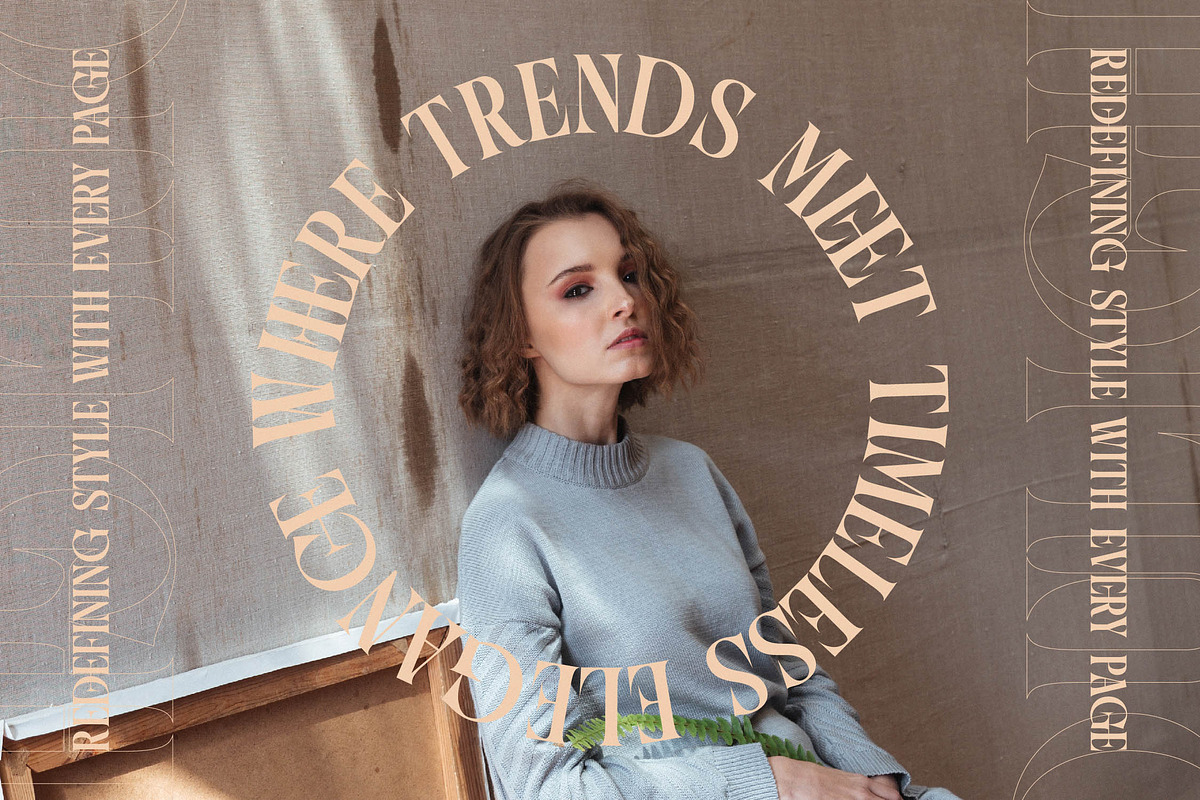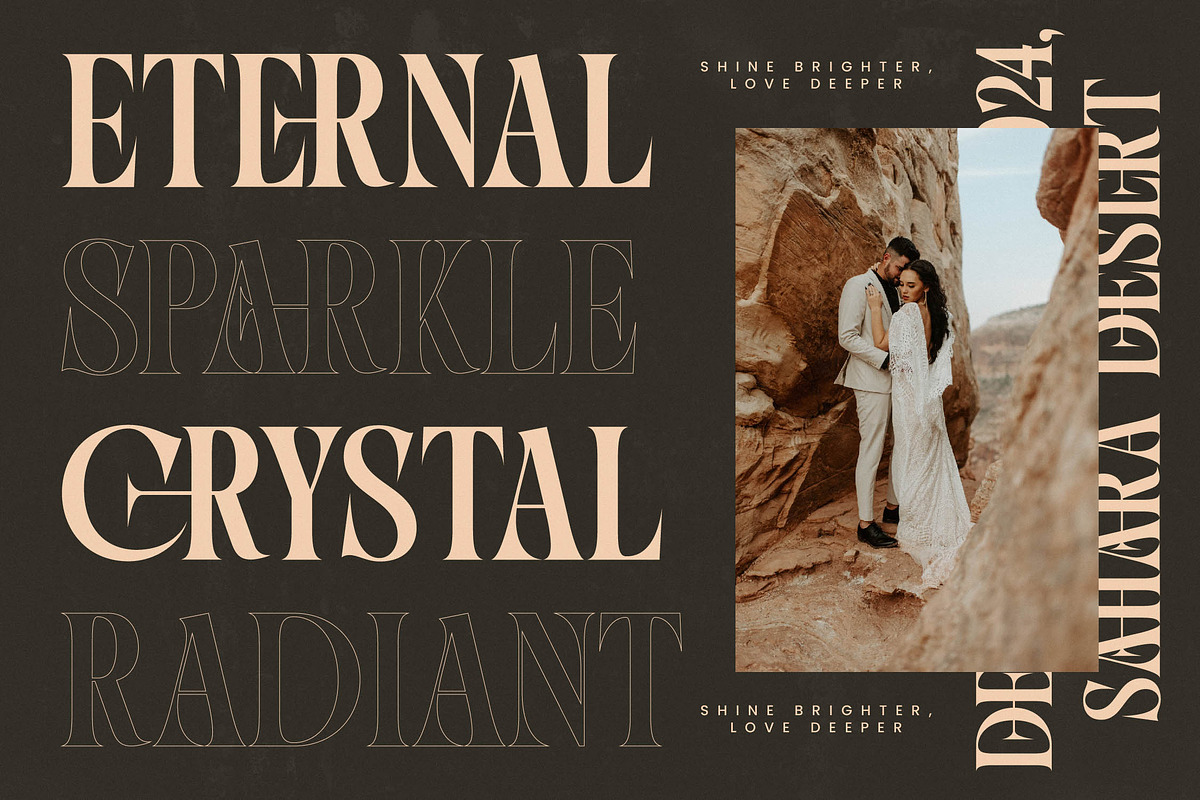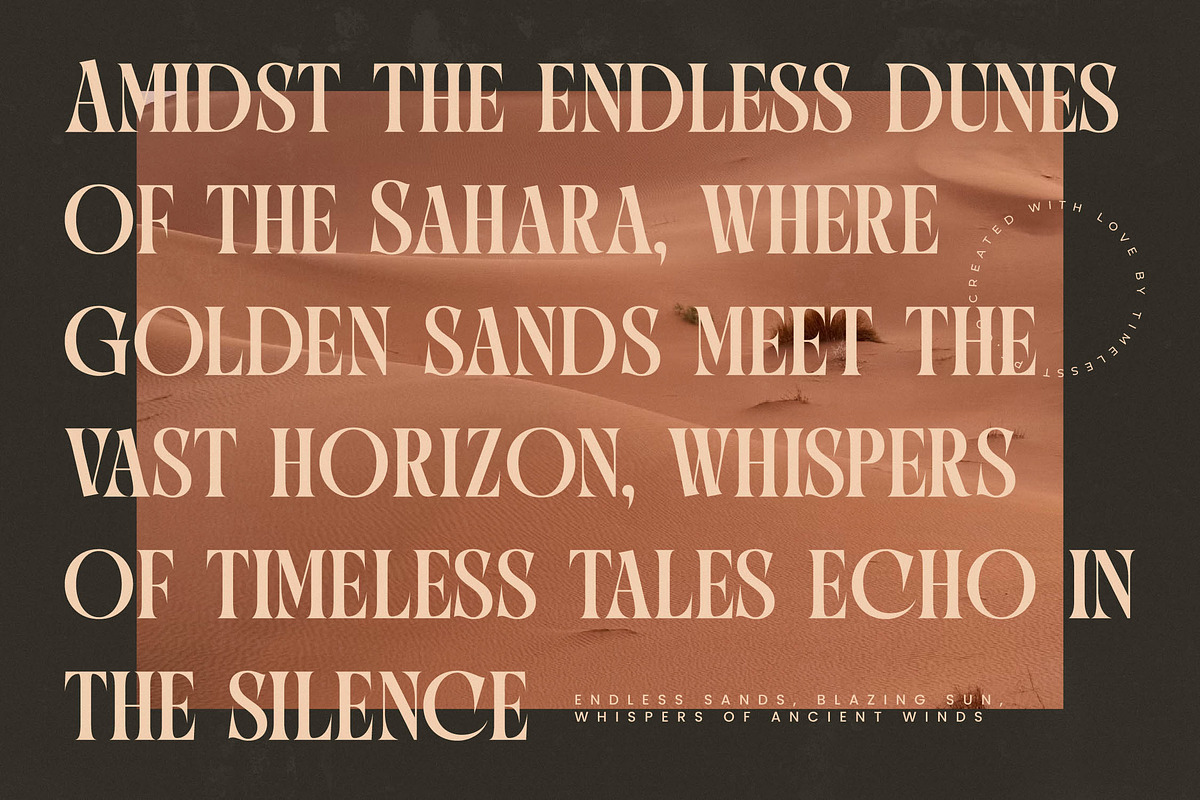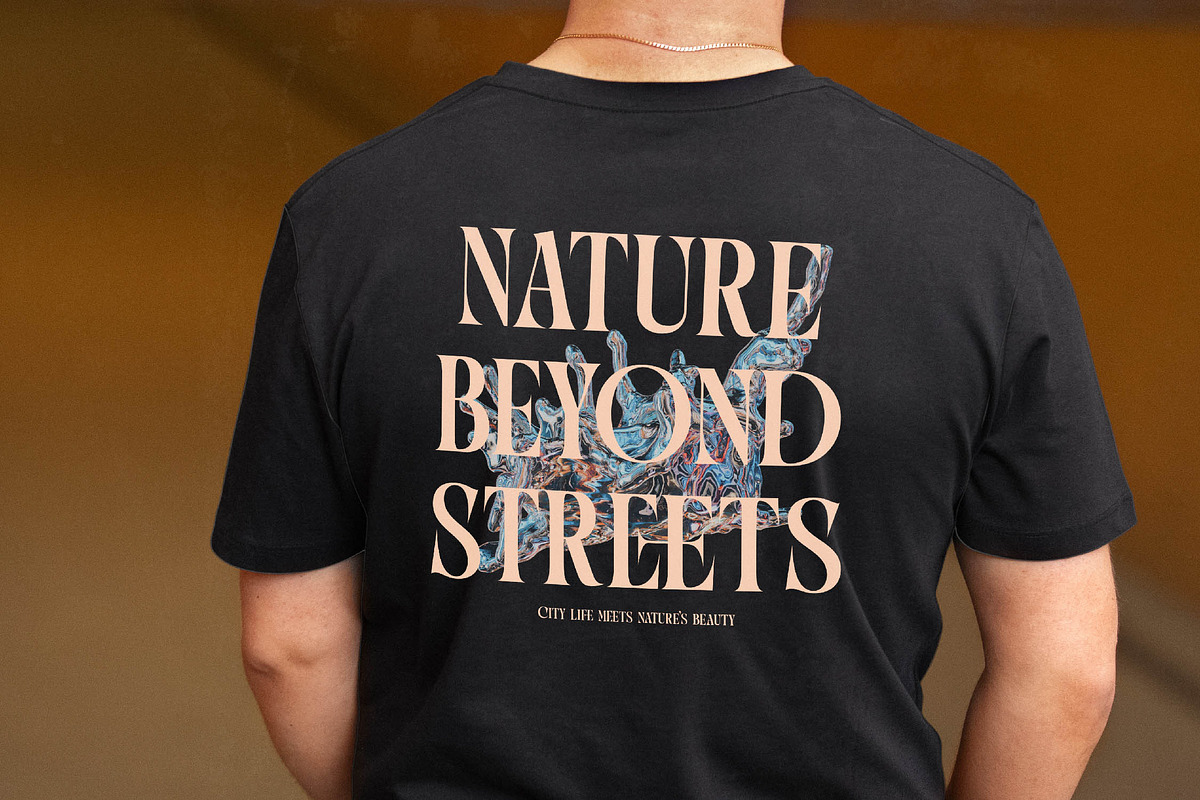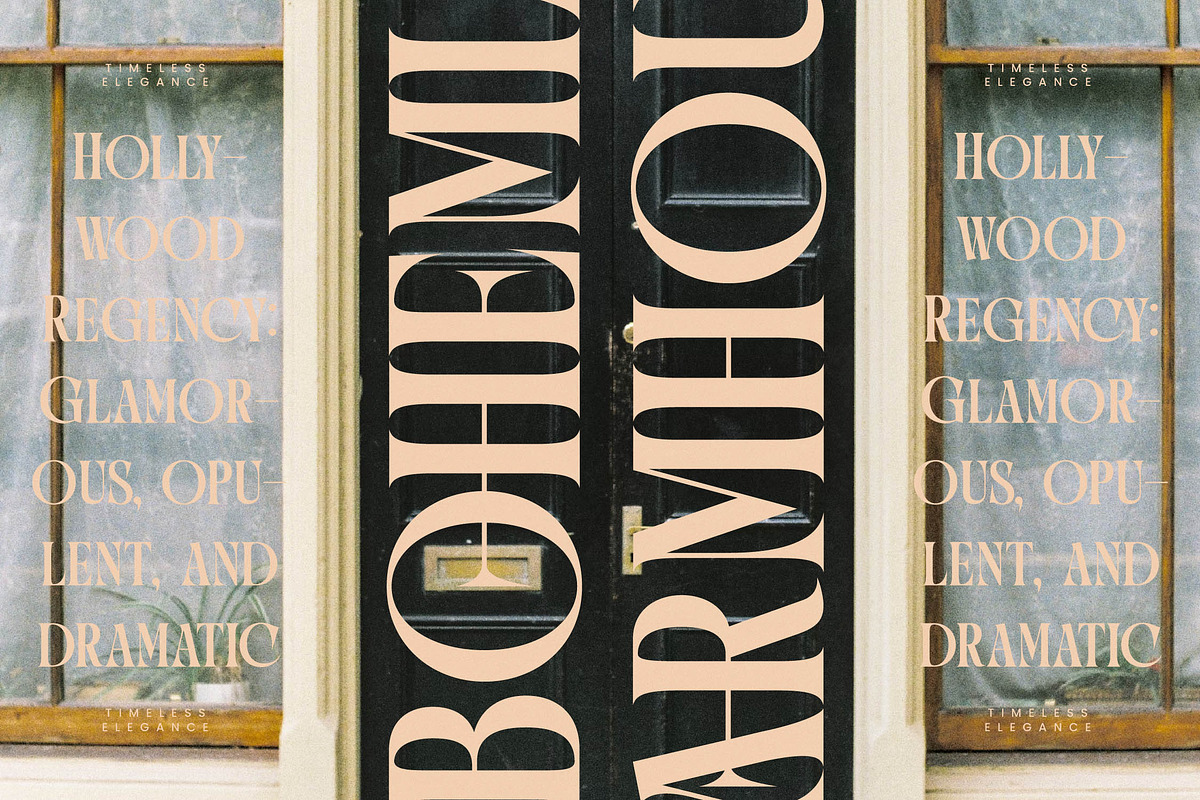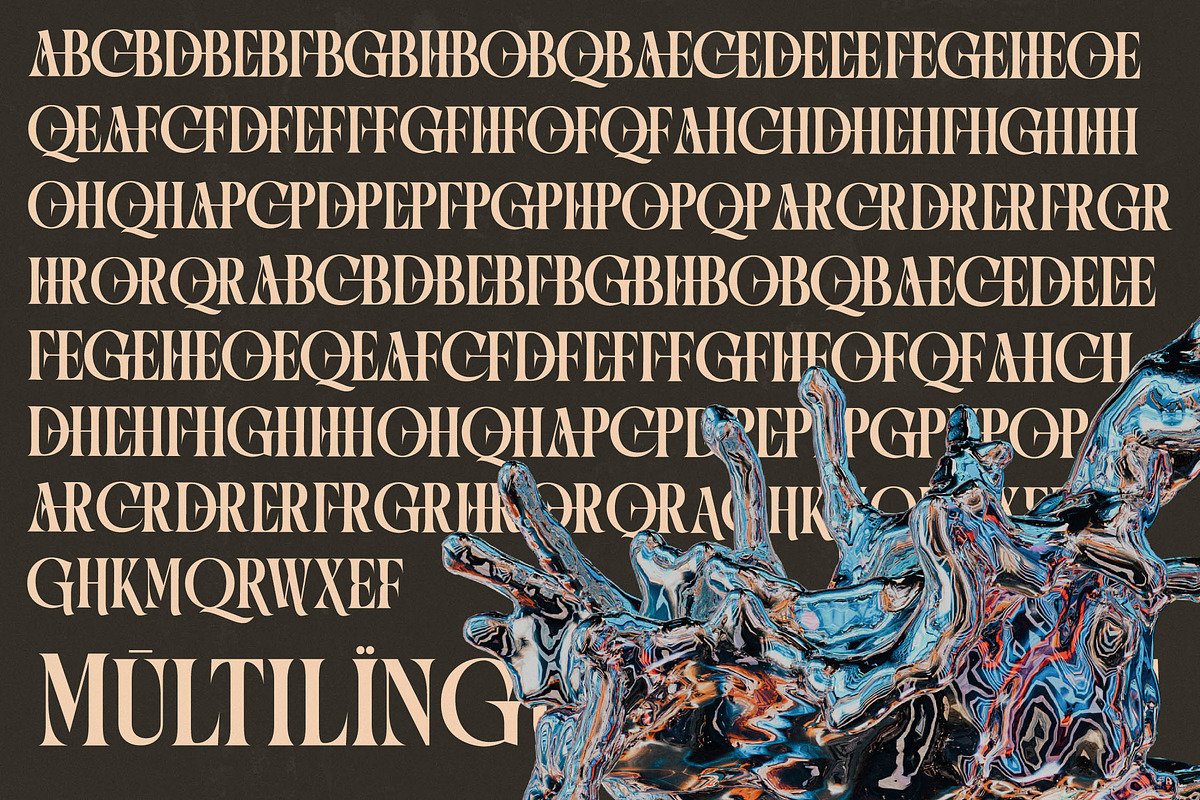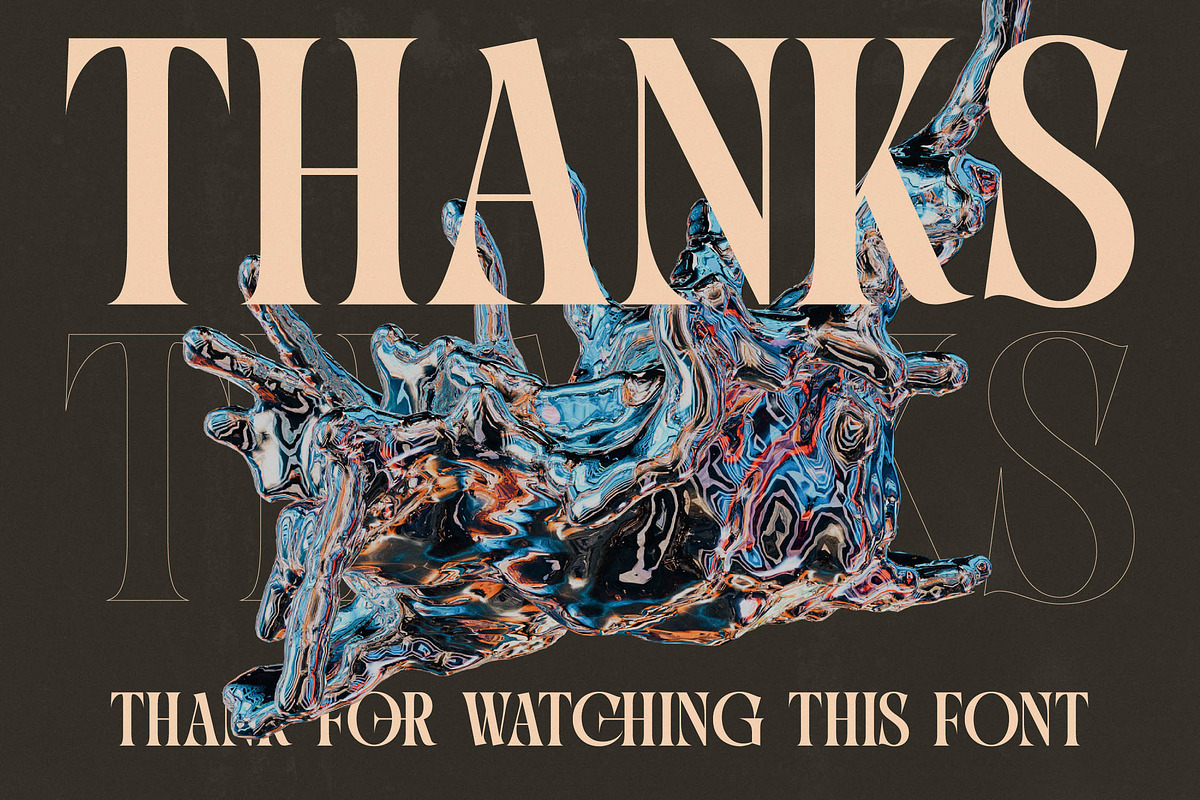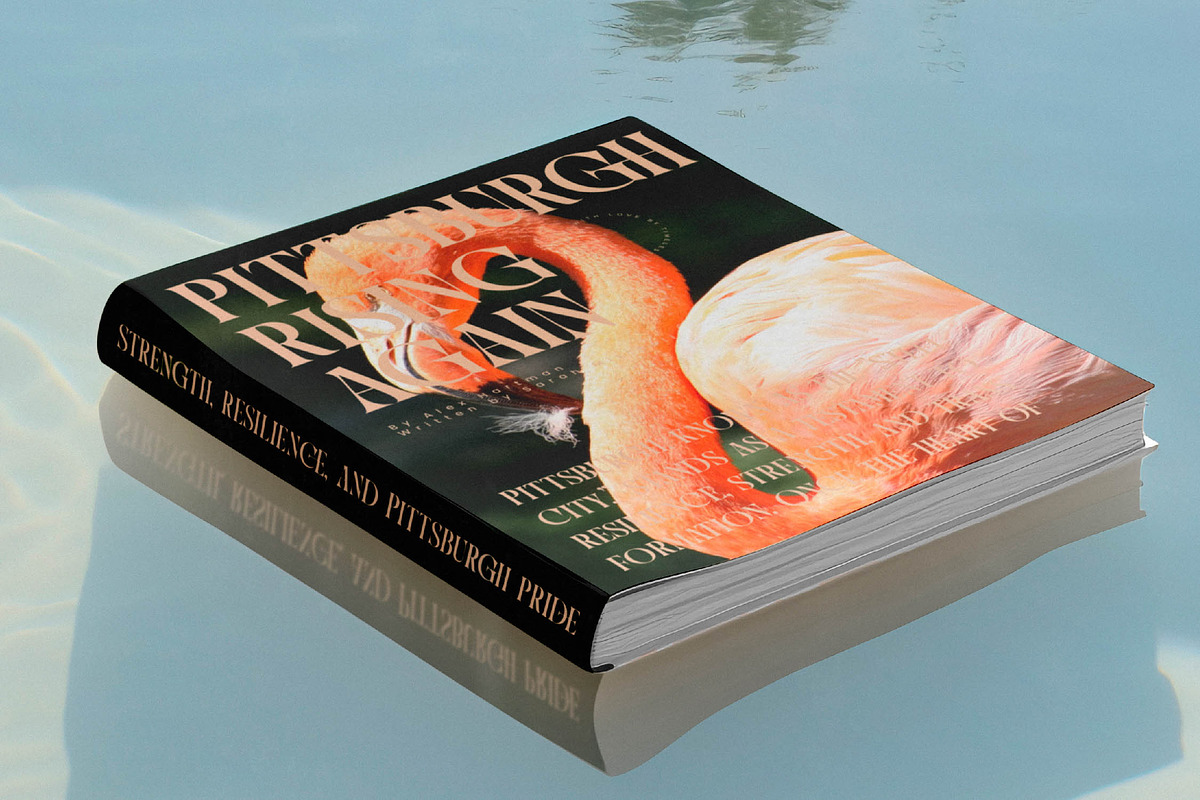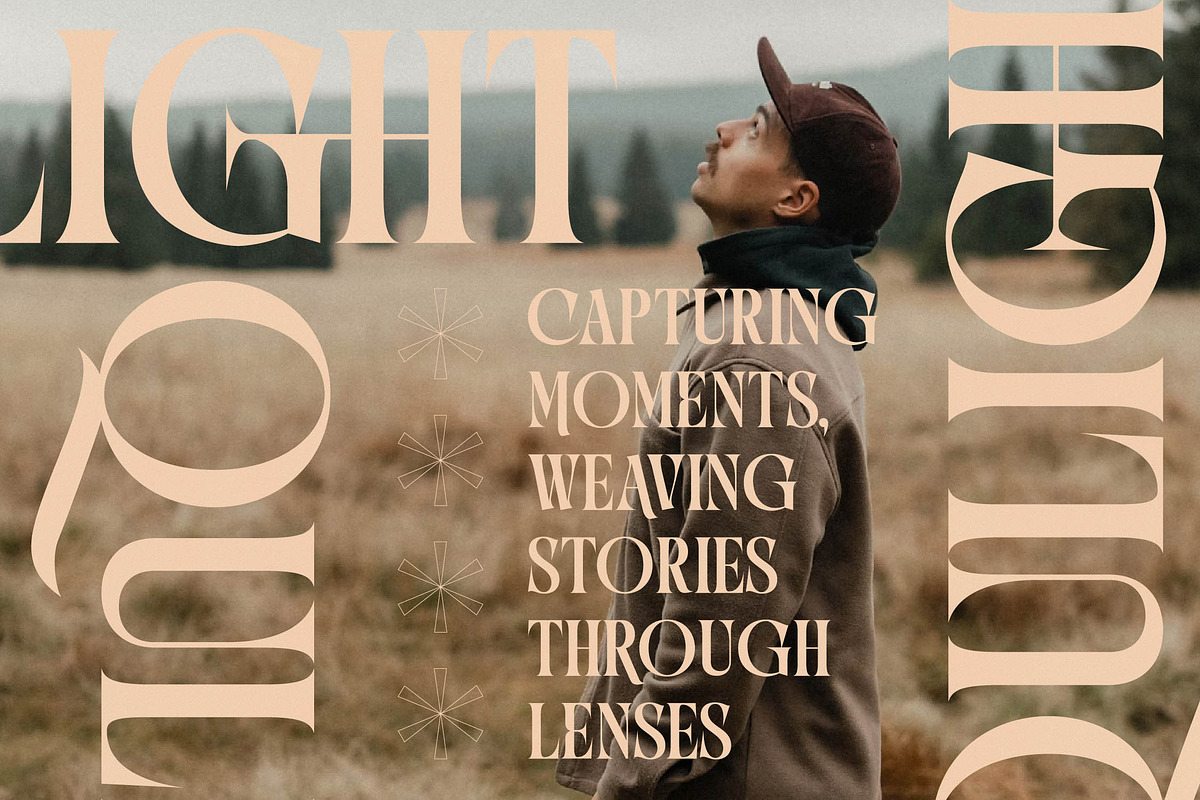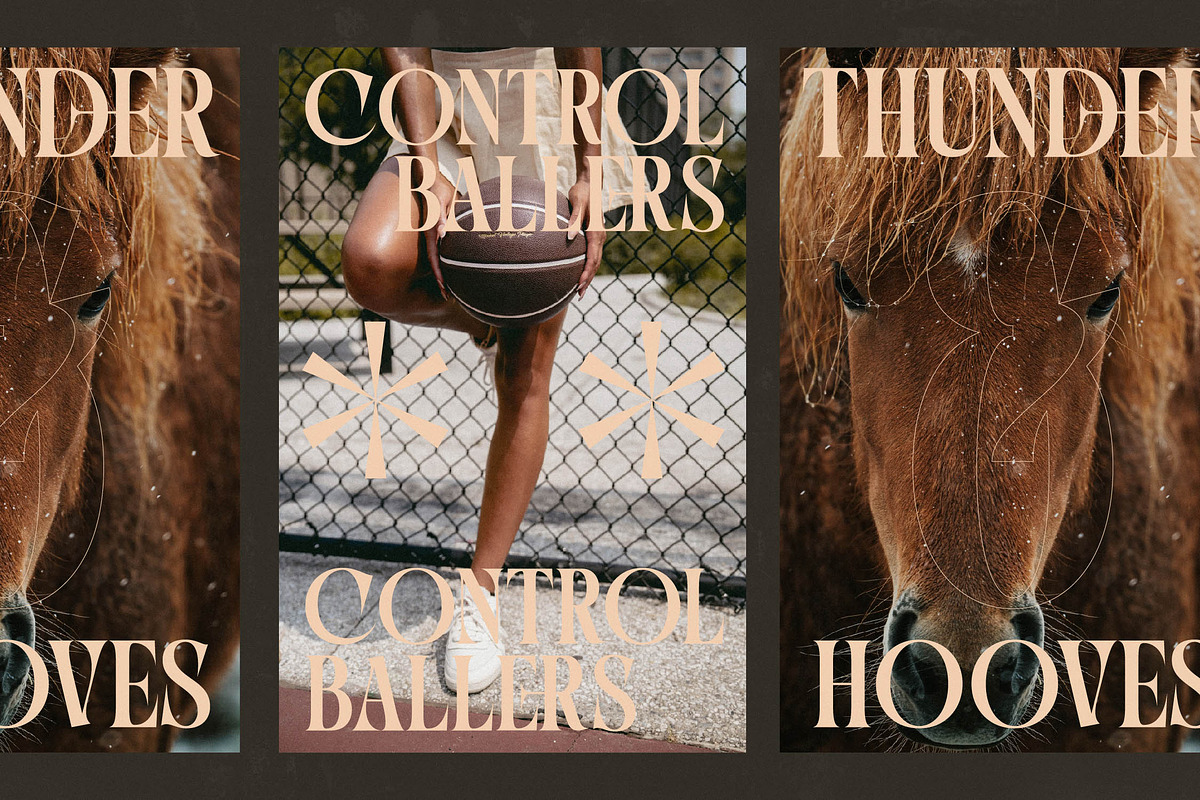
Qulight Modern Serif Display
Elevate your visual narrative with the breathtaking elegance of Qulight, a typeface designed to command attention with every stroke. It merges classical sophistication with a liquid-like fluidity that feels both timeless and remarkably forward-thinking.
Drawing inspiration from the interplay of light and liquid, this typeface captures the essence of shimmering glass and high-fashion aesthetics. Its structure is a celebration of sharp precision meeting organic grace, evoking the atmosphere of a high-end art gallery or a moonlit atelier.
This modern serif display is engineered for maximum branding impact, offering a luxury typography solution that speaks in a voice of refined authority. Its high-contrast serif forms create a rhythmic dance across the page, making it the ultimate editorial font for projects that require a touch of prestige.
Perfectly aligned with the current modern serif trend, this typeface brings character-driven typography to the forefront of the digital age. It meets the growing demand for editorial display fonts that possess a distinct soul and a sculptural quality that stands out in a crowded marketplace.
Whether you are crafting a unique logo design or developing a cohesive branding identity, this font delivers unparalleled versatility. It is the ideal choice for high-end packaging, sophisticated wedding invitations, editorial magazine spreads, and cutting-edge fashion campaigns.
The font is packed with creative possibilities, including a wide array of ligatures and alternates that allow for custom character combinations. With its extensive multilingual support and international characters, it ensures your message reaches a global audience while maintaining its decorative flair and optional swashes.
- Ligature 188 Alternate 22